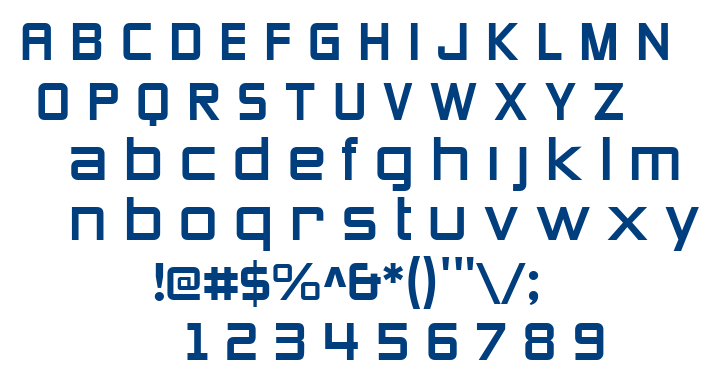
Zeroes is a set of fashion-inspired geometric display fonts. Specifically: the Canadian tuxedo. Don’t forget to read the files inside the zip for details. Updated in 2012.